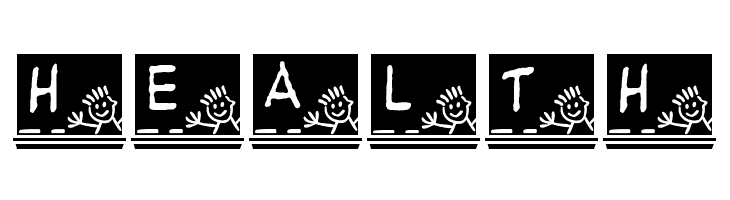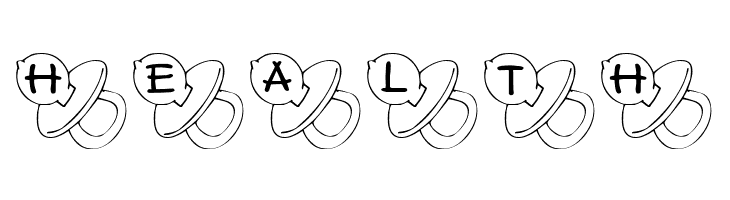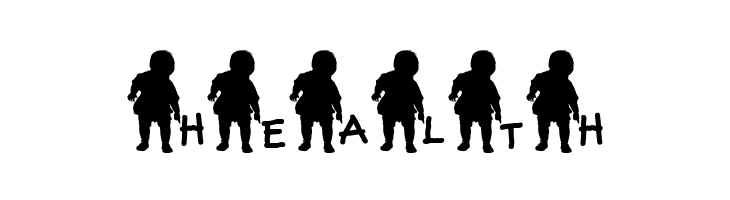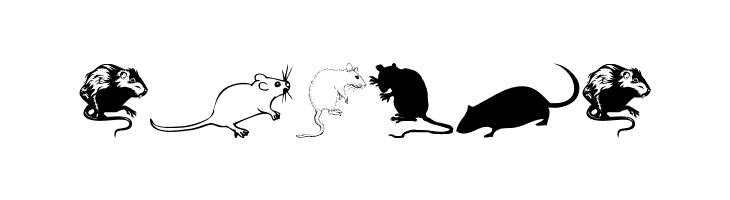
A decorative font with letters encased in gift box illustrations, perfect for festive designs.
A decorative font with letters encased in sunflower motifs, offering a bold and artistic style.
A playful font with letters inside car silhouettes, perfect for fun and whimsical projects.
A whimsical, decorative font with letters embedded in playful character illustrations.
A playful and whimsical design featuring fortune cookies with slips of paper.
A playful font with letters embedded in school-themed doodles.
A whimsical font with characters embedded in bronzed shoe illustrations.
A playful and whimsical font with bold, decorative characters and unique circular elements.
A playful font with characters shaped like teeth, ideal for fun and dental-themed projects.
A playful font with bold letters and integrated cartoon dog illustrations.
A playful font with letters in heart-shaped wheelbarrows.
A whimsical and elegant script font with flowing, cursive letters.
A playful font with letters embedded in gorilla silhouettes, ideal for decorative use.
A whimsical decorative font featuring a child fishing silhouette with integrated letters.
A modern, inclusive font combining letters with the wheelchair symbol.
A decorative serif font with playful illustrations in uppercase letters.
A playful, wave-themed decorative font ideal for nautical designs.
A decorative font with characters enclosed in Celtic crosses, blending tradition with modern style.
A playful, cartoonish font with Spartan characters integrated into each letter.
A bold, playful font with handprint motifs on each letter.
A whimsical font with winged circular letters, perfect for fantasy themes.
A decorative font with characters inside sheriff badge shapes, perfect for Western-themed designs.
A decorative font with floral patterns on bold uppercase letters.
A playful font with characters enclosed in alarm clock designs, ideal for creative projects.
The image contains decorative icons, not a font.
A playful font with characters resembling handprints, ideal for fun and informal projects.
A whimsical, curly font with playful loops and swirls.
A bold, distressed font with a grunge, urban aesthetic.
A bold, graffiti-inspired font with a playful and energetic style.
A playful, bold handwritten font with rounded edges and a casual style.